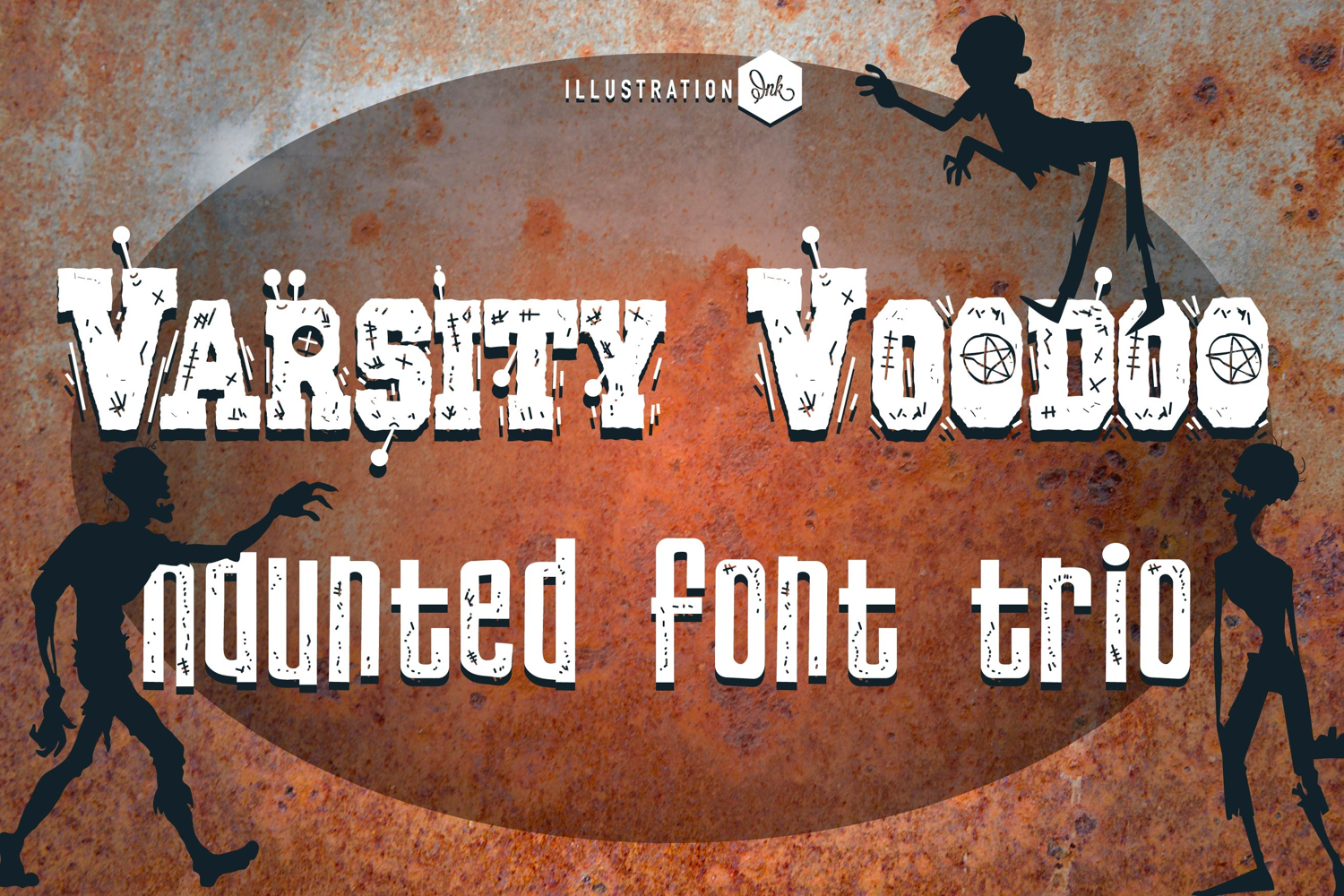
Varsity Voodoo Font Trio
This hand-crafted font trio combines a scary, athletic style font, dripping with voodoo imagery and a perfectly coordinated sans serif font as well as a more scared version of the original athletic font.. With all family members combined of the 3 fonts, you get 9 fonts all together!